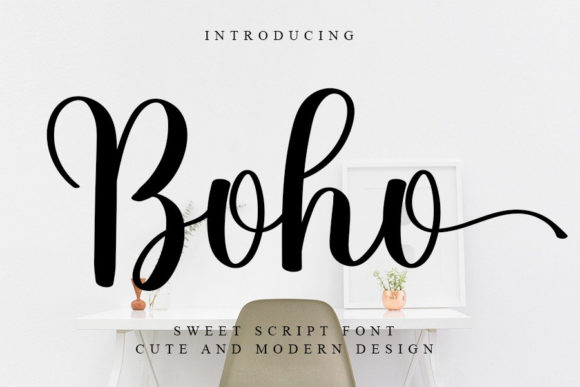
Introducing Boho Font: The Epitome of Elegance and Whimsy
Are you on the hunt for a font that exudes elegance, sophistication, and a dash of free-spirited whimsy? Look no further than Boho Font, a stunning script font that is sure to capture your heart. With its flowing and graceful lines, Boho Font is the perfect choice for designers and crafters looking to add a touch of bohemian chic to their creations.
What is Boho Font?
Boho Font is a beautiful script font that embodies the carefree spirit of the bohemian lifestyle. Its ravishing style is characterized by fluid, connected letters that dance across the page, creating a sense of movement and energy. Whether you’re designing wedding invitations, stationery, social media posts, or any other type of visual content, Boho Font is sure to make it stand out from the crowd.
Perfect for Wedding Invitations and Stationery
One of the most popular uses for Boho Font is in wedding invitations and stationery. The font’s elegant, cursive script is reminiscent of traditional wedding fonts, yet its bohemian twist adds a modern and playful touch. With Boho Font, you can create gorgeous wedding invitations, save-the-date cards, and other stationery that will set the tone for a romantic and unforgettable celebration.
In addition to wedding stationery, Boho Font is also perfect for creating beautiful journals, planners, and other paper crafts. Its flowing lines and whimsical feel make it a great choice for adding a personal touch to your handmade creations.
Eye-Catching Social Media Posts
Boho Font is not just limited to print design. Its bold, cursive script also translates beautifully to digital design, making it a great choice for creating eye-catching social media posts. Whether you’re designing graphics for Instagram, Facebook, or Pinterest, Boho Font is sure to grab the attention of your followers and leave a lasting impression.
Use Boho Font to create stunning social media headers, quotes, and other graphics that showcase your brand’s personality and style. Its unique and whimsical feel will help you stand out in a crowded online space and attract a loyal following.
Key Features of Boho Font
- Flowing and graceful script: Boho Font features fluid, connected letters that create a sense of movement and energy.
- Bohemian chic: The font’s whimsical feel and elegant lines make it perfect for adding a touch of bohemian style to your designs.
- Highly versatile: Boho Font can be used for a wide range of design projects, from wedding invitations and stationery to social media posts and digital graphics.
- Easy to read: Despite its ornate and cursive script, Boho Font is surprisingly easy to read, making it perfect for body text and headlines.
Tips for Using Boho Font
To get the most out of Boho Font, here are a few tips to keep in mind:
- Use it sparingly: While Boho Font is beautiful, it can be overwhelming if overused. Use it sparingly to add a touch of elegance and whimsy to your designs.
- Experiment with colors: Boho Font looks stunning in a variety of colors, from soft pastels to rich jewel tones. Experiment with different colors to find the perfect combination for your design.
- Pair it with contrasting fonts: For added visual interest, pair Boho Font with contrasting fonts, such as bold sans-serif fonts or delicate serif fonts.
In conclusion, Boho Font is a stunning script font that is sure to capture your heart. Its flowing and graceful lines, bohemian chic, and high versatility make it the perfect choice for designers and crafters looking to add a touch of elegance and whimsy to their creations. Whether you’re designing wedding invitations, stationery, social media posts, or any other type of visual content, Boho Font is sure to make it stand out from the crowd.